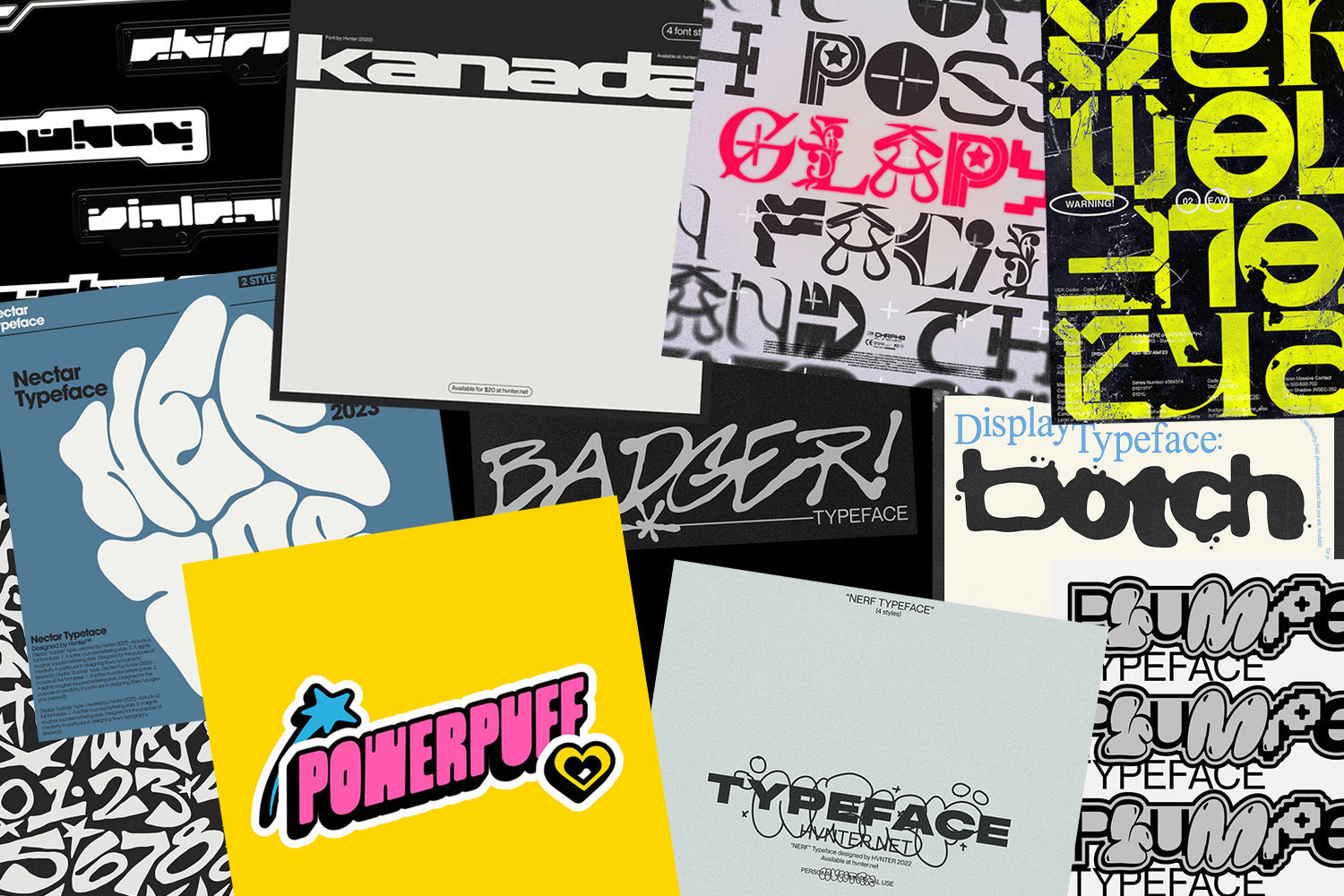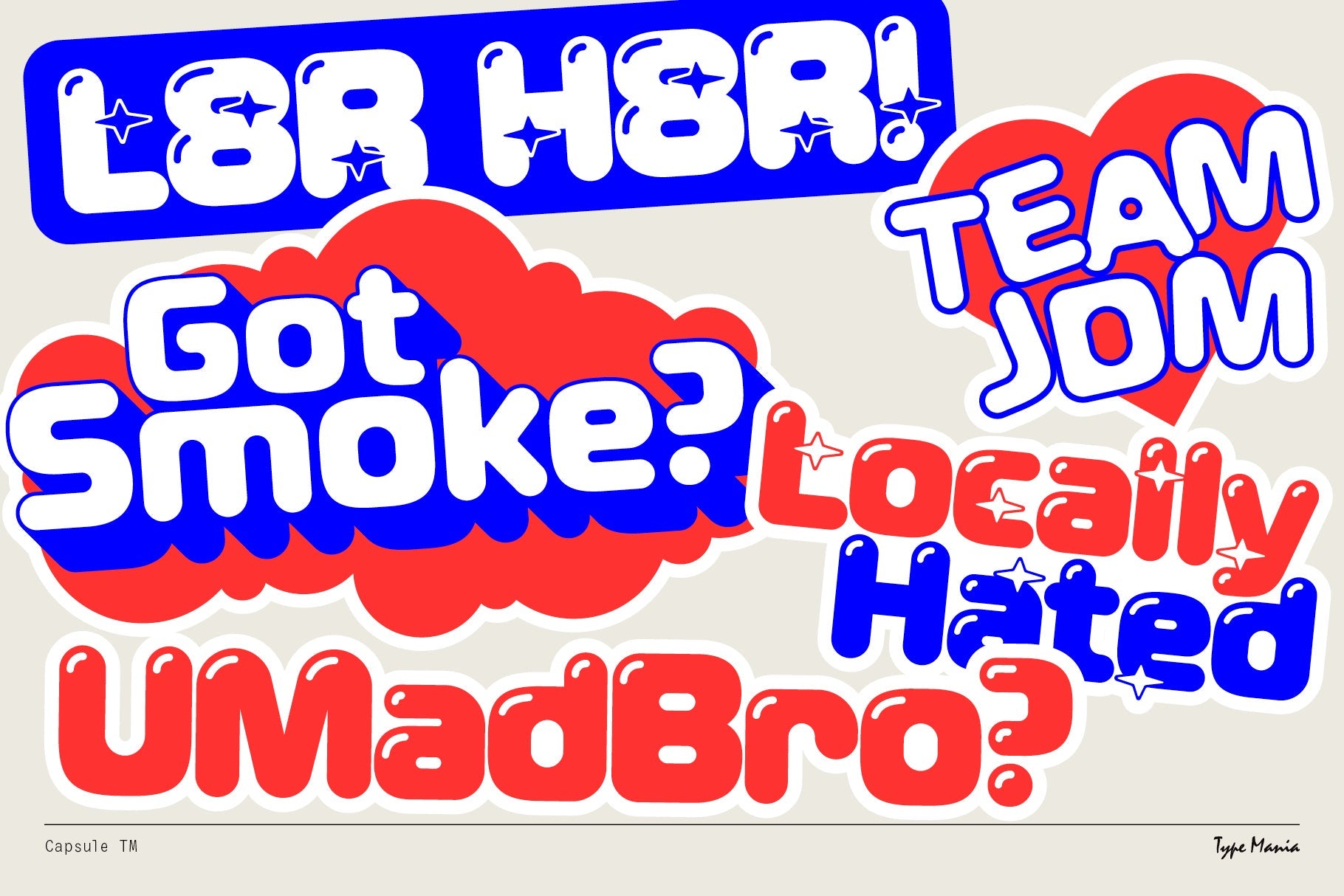
Y2K never really left, design just got tired of pretending it did. The aesthetic keeps resurfacing because it covers more ground than most eras get credit for: bubble-soft plastic type, warped liquid chrome, hand-scrawled ink, clean pixel logic, all filed under the same decade. These sixteen Y2K fonts pull from every corner of that range, spanning bubble type, liquid chrome, pixel logic, and grunge ink from the early 2000s, and each one was chosen for how it holds up on a real brief.
If you're building anything with a 2000s aesthetic, from posters and merch to branding and album art, this is a working shortlist of Y2K typography that already understands the assignment.
1. All-Star Display Typeface by hvnter
Jagged and built to shout. All-Star carries a set of star glyphs alongside the standard character set, and the rough edges give it a rock poster energy that holds up on merch and streetwear graphics without needing extra texture work stacked on top.
2. Cinema Typeface by hvnter
Cinema splits the difference between clean form and pixel breakdown, an abstract hybrid with the texture of old digital display hardware built directly into the letterforms. Strong pick for anything referencing early screens or broadcast graphics.
3. Cool Font (Vol. 1) by hvnter
Fourteen styles in a single file, each pulling a distinctly different direction: ball, cloud, fire, goop, pixel, trippy, structured. Cool Font operates as a full Y2K toolkit in one file, useful when a single project needs several distinct textures without sourcing from multiple products.
4. Dreamer TM by Type Mania
Type Mania built Dreamer TM specifically to chase the Y2K register, an emotive serif with an edgy twist that sits well on posters, logos, and branding work that wants a nostalgic touch without going full pastiche.
5. Oddball TM by Type Mania
Blobby, handwritten, and hard on the 90s vibes. Oddball TM has the deliberately imperfect quality of a font drawn fast on a napkin, which gives merch and album art a lived-in feel straight out of the file.
6. Umidus by Softulka
Liquid and warped, like the letterforms are still wet. Umidus comes in three finishes, plain black, transparent outline, and highlighted, so the same wavy structure can sit clean or fully chaotic depending on the piece. Built for festival posters and bold titles that need to feel unstable on purpose.
7. Digi Decay Pixelated Typeface by Softulka
Corrupted data rendered as a typeface. Digi Decay takes glitch art and broken code as its starting point, with intentional gaps in the letterforms that read like a display breaking down mid-transmission. Sits well in tech branding and sci-fi visual work.
8. Norme by Typeparties
Where most of this list leans nostalgic, Norme looks forward. Clean geometric structures and rounded precision give it the tech-optimism side of Y2K, the half of the aesthetic built on faith in the future.
9. Lazy Daze by Typeparties
Sketched straight from a notebook margin. Lazy Daze has an uneven, doodled quality drawn from zine culture, loose enough to feel spontaneous but with real weight behind the strokes when it's set large.
10. Pasta Monday Pixel Script by The Native Saint Club
Pixel letters that connect like stitching. Pasta Monday blends 8-bit structure with a decorative, handcrafted quality, an unusual combination that suits craft-adjacent graphics and packaging as much as it does straightforward poster work.
11. Porca by Blankids
Rounded pixel forms borrowed from arcade cabinets and early computer graphics. Porca softens the usual blocky bitmap edge without losing the chunky presence, a good fit for gaming-adjacent branding and streetwear that wants a retro-digital reference without the harsher industrial angle.
12. CS Flexion by Craft Supply Co
CS Flexion is bubble type with real bounce in the letterforms, bright and rounded in the way early-2000s branding leaned into. Solid across social content, merch, and any branding work that wants a cheerful, high-energy register.
13. Fleshy by Rémi Bordet
Tight apertures and bold, impactful letterforms with a graffiti edge underneath the bubble surface. Fleshy draws on 70s and 80s display faces as much as it does Y2K, which gives it a slightly wider range than a straight bubble font, useful for editorial and social work that wants personality without going full cartoon.
14. Dirty Bleed Display Font by Afterimagine
Ink that looks like it's still spreading across the page. Dirty Bleed sits at the grungier end of the Y2K range, bold strokes with a heavy bleed treatment built around controlled chaos, suited to album art and poster work carrying serious texture. It supports 60 languages, so it holds up on international work.
15. FELONY Condensed by w.m.works
An ink bleed condensed face built specifically for grunge treatments. FELONY Condensed holds its shape at small sizes better than most distressed display fonts manage, which makes it more versatile across branding and packaging than the average grunge pick.
Picking the right one comes down to which half of the decade you're referencing: the clean, future-facing screen aesthetic, or the messy, hand-touched one underneath it. This list covers both.
Sixteen fonts, none of them chasing the same reference twice. Whatever the brief calls for, bubble plastic, liquid chrome, pixel logic, or hand-drawn ink, there's a starting point here that already understands the assignment. Browse the rest of the Y2K fonts collection for more in the same direction.